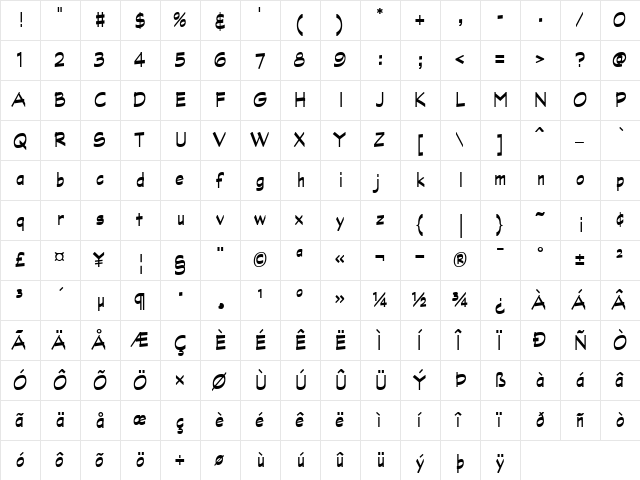
GraphiteMM Regular
Design Context for GraphiteMM Typeface
GraphiteMM is a composed and adaptable typeface that performs quietly and consistently across a wide range of design contexts.